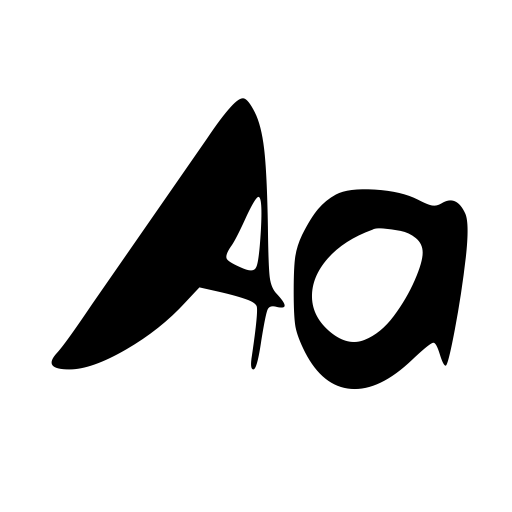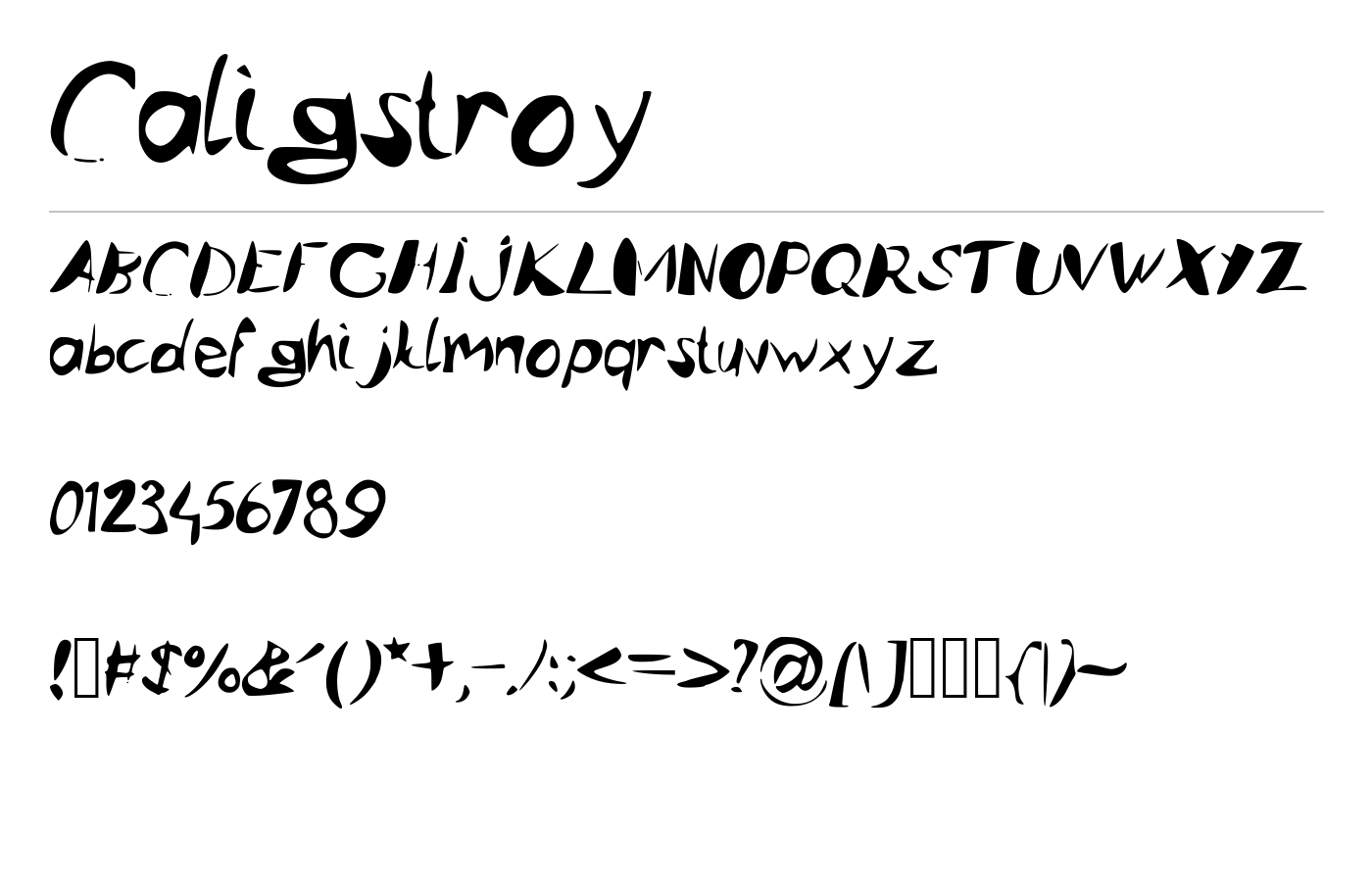
Caligstroy is a lively handwritten font with an energetic, brush-like style that features irregular shapes and varying stroke weights, giving it a casual yet bold personality. Its playful and dynamic letterforms work well for creative projects, branding, posters, and informal headlines where a unique, artistic touch is desired. This font adds an expressive, human feel that stands out in designs needing character and spontaneity.
Caligstroy Font
About Caligstroy Font